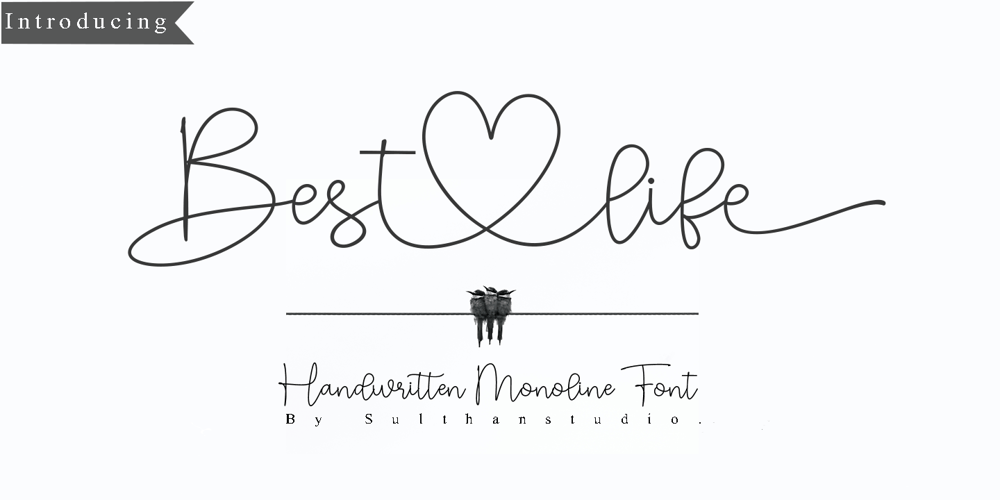
Best Life Font Family was designed by Nasrullah and published by Sulthan Studio. Best Life contains 1 styles and family package options. Best life – This cool one line handwritten font is very stylish and elegant that has a great style for your work with hearts in the middle and also lowercase swashes in front and back and lowercase swashes on back and hearts in front of letters to connect.